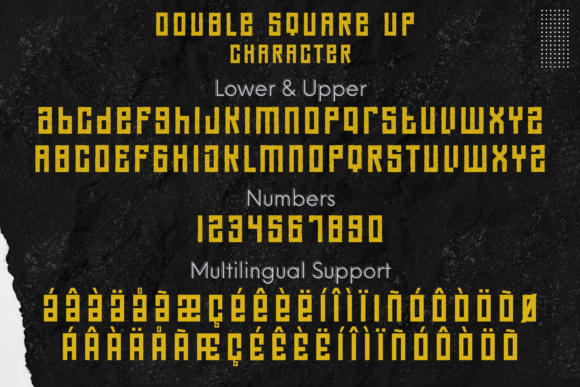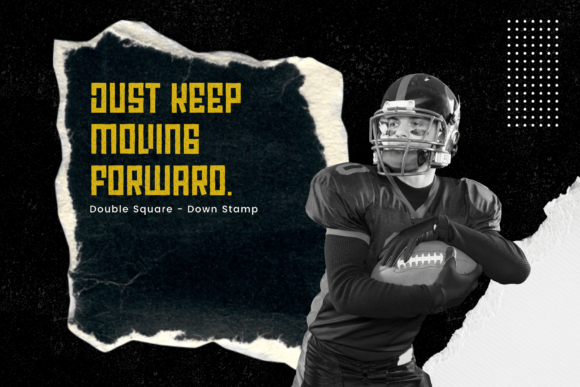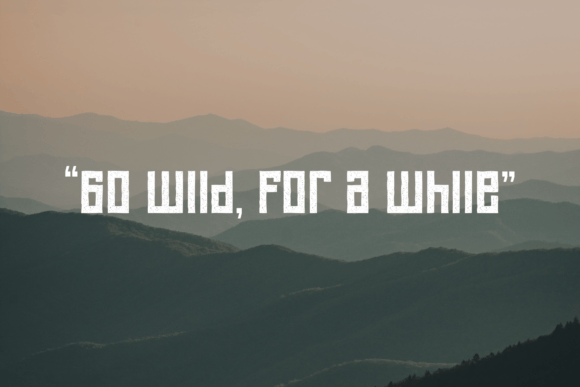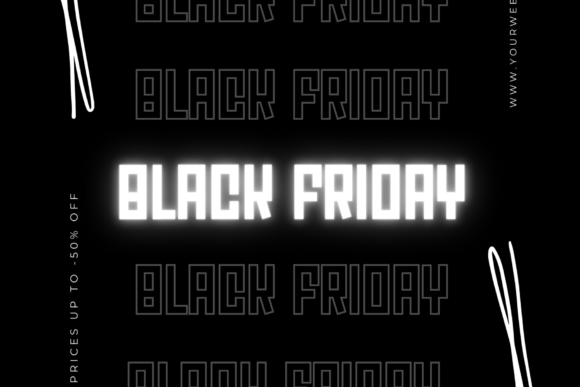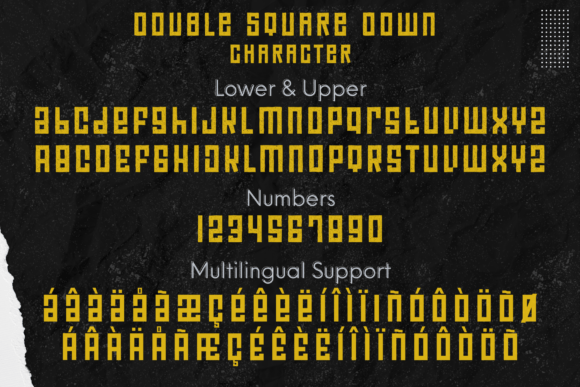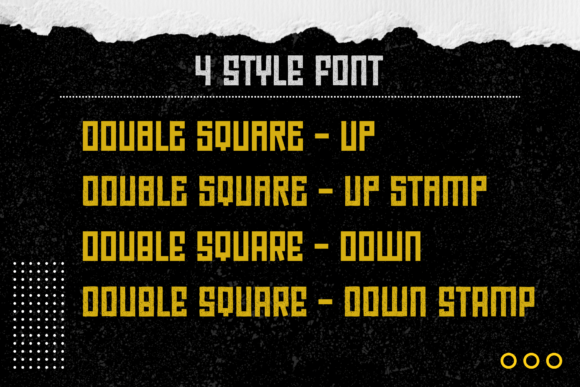
Introducing Double Square Font: The Ultimate Futuristic Display Font
In the world of design, fonts play a crucial role in conveying messages and making a lasting impression. If you’re looking for a font that can add a touch of futurism and boldness to your work, look no further than the Double Square Font. This thick and striking font is perfect for making your work and message pop, and its versatility makes it suitable for a wide range of design projects.
What is Double Square Font?
Double Square Font is a futuristic display font designed to make a statement. Its thick and sturdy lines give it a robust and modern look that’s perfect for grabbing attention. The font’s unique design features double square-shaped lines that create a sense of depth and dimensionality, making it stand out from other fonts.
Uses of Double Square Font
Double Square Font is an incredibly versatile font that can be used for a variety of design projects, including:
- Sports titles: The font’s bold and dynamic design makes it perfect for sports-related designs, such as team logos, jerseys, and sports equipment.
- Headlines: Double Square Font is ideal for creating eye-catching headlines that demand attention.
- Logos: The font’s unique design makes it an excellent choice for creating memorable and impactful logos.
- Posters: Double Square Font can add a touch of futurism and excitement to your posters, making them stand out from the crowd.
- Instagram or social media ads: The font’s bold design makes it perfect for creating attention-grabbing social media ads.
- Branding: Double Square Font can be used to create a consistent brand identity that exudes modernity and boldness.
Why Choose Double Square Font?
There are many reasons why Double Square Font stands out from other fonts:
- Unique design: The font’s double square-shaped lines create a unique and memorable design that’s sure to grab attention.
- Versatility: Double Square Font can be used for a wide range of design projects, from sports titles to branding.
- Easy to read: Despite its bold design, Double Square Font is easy to read, even at smaller sizes.
- Customizable: The font can be customized to fit your specific design needs, making it a great choice for designers.
Tips for Using Double Square Font
Here are some tips for getting the most out of Double Square Font:
- Use it boldly: Double Square Font is designed to make a statement, so don’t be afraid to use it boldly and prominently.
- Experiment with colors: The font’s bold design makes it perfect for experimenting with different colors and gradients.
- Pair it with other fonts: Double Square Font can be paired with other fonts to create a unique and visually appealing design.
| Font Name | Double Square Font |
Double Square Font is a powerful and versatile font that’s perfect for designers and crafters looking to add a touch of futurism and boldness to their work. Its unique design, versatility, and ease of use make it an excellent choice for a wide range of design projects. Whether you’re creating sports titles, headlines, logos, or social media ads, Double Square Font is sure to make your work and message pop.